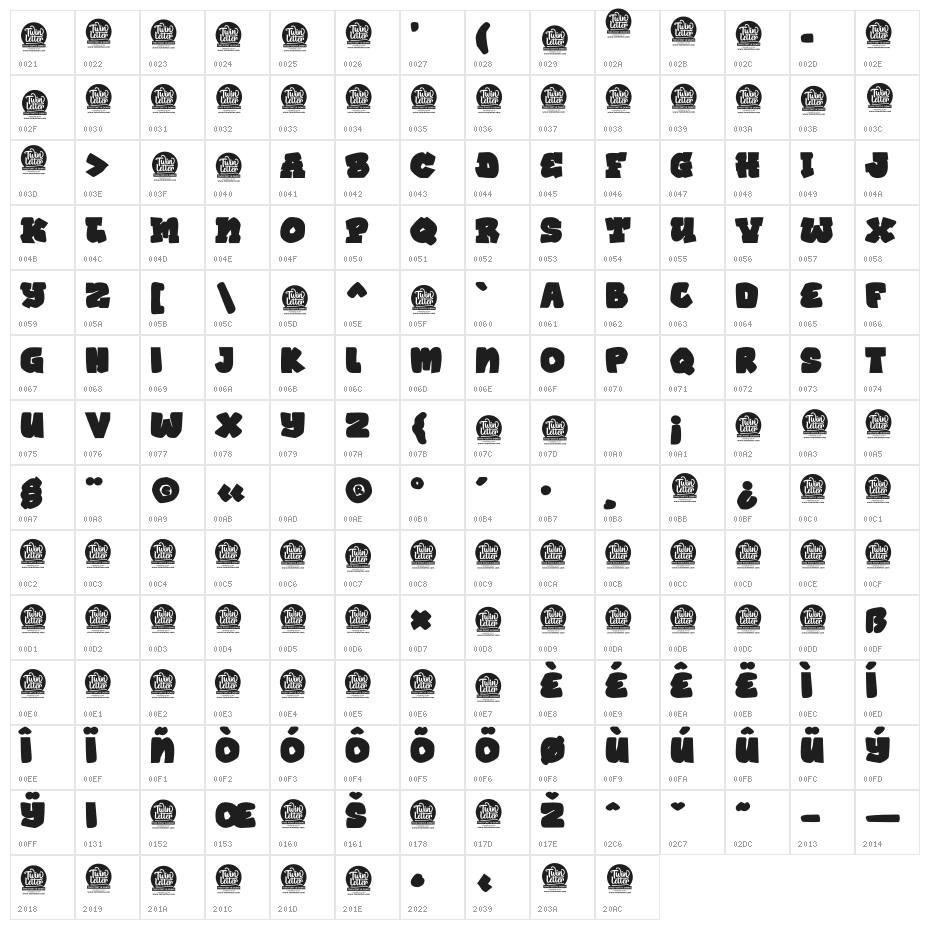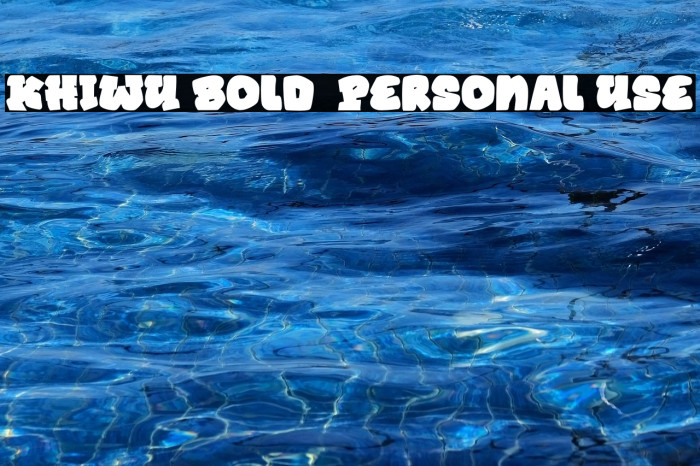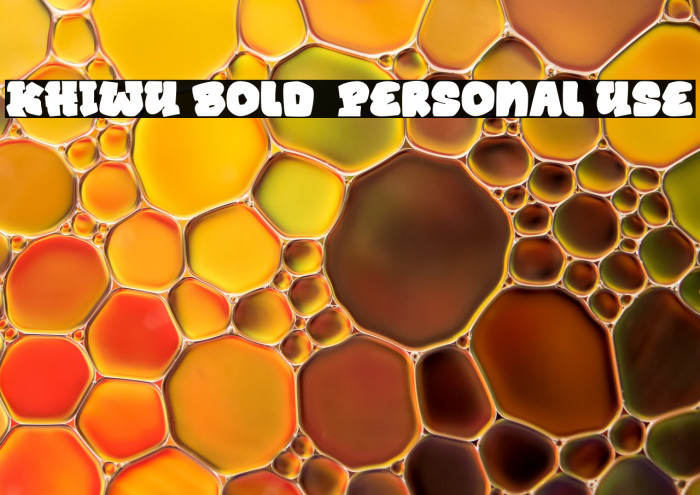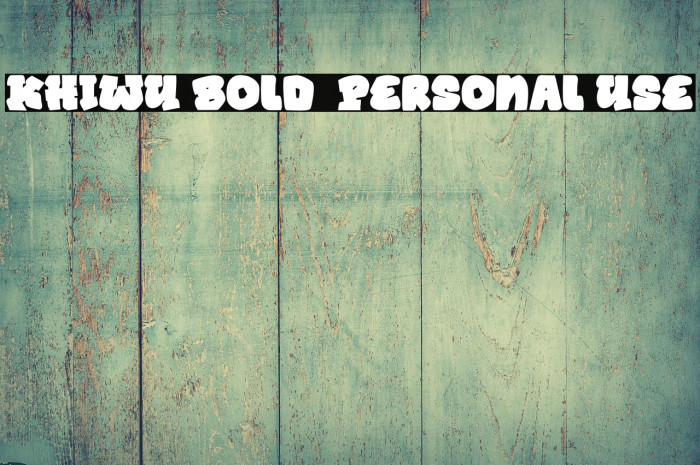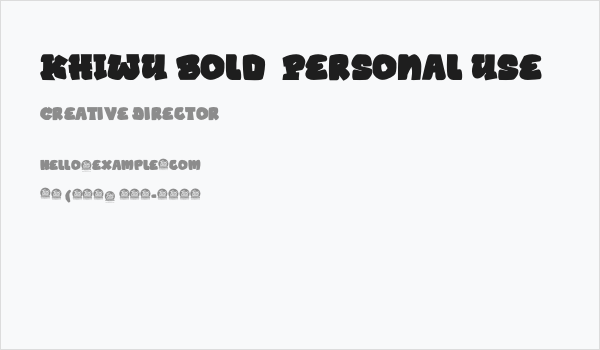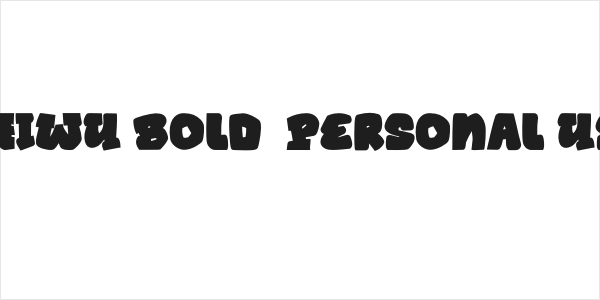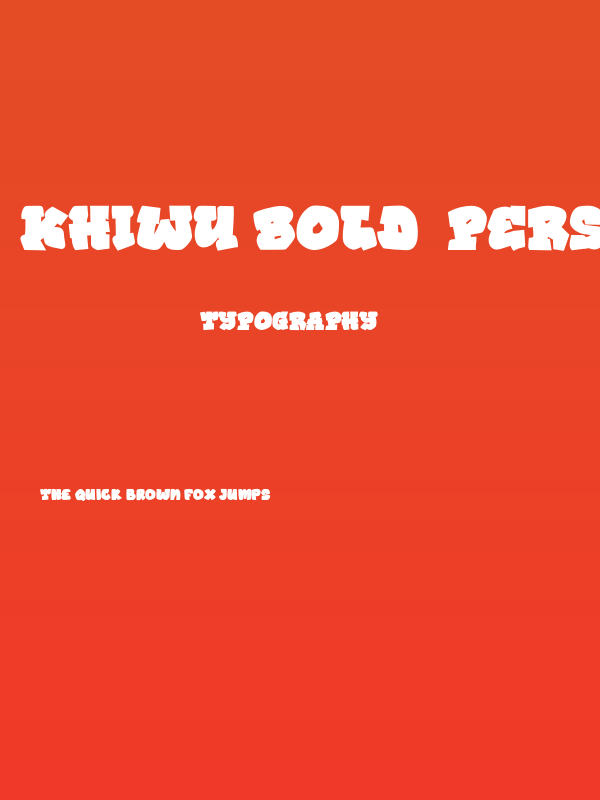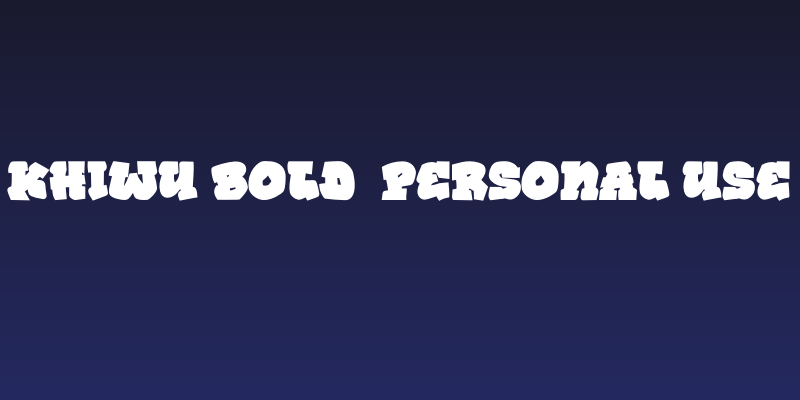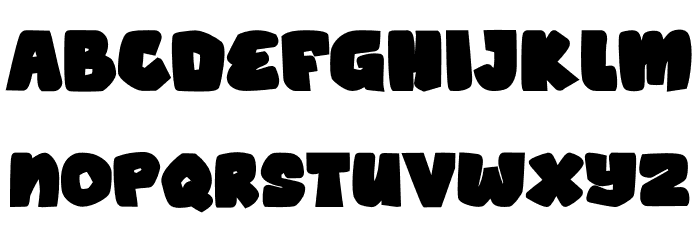
KHIWU Bold Personal Use Font
KHIWU Bold Personal Use Description
This bold and playful font features thick, chunky letters with a strong presence. The characters are designed with a unique, slightly irregular shape that adds a whimsical and fun touch. The font's heavy weight and solid structure make it ideal for attention-grabbing headlines and designs. Its boldness is complemented by a moderate character spacing, ensuring readability while maintaining its distinctive style. The font's overall appearance is modern and decorative, making it suitable for creative projects that require a bold statement.
| Proposed Projects | Ideal for posters, logos, children's books, and playful branding projects. |